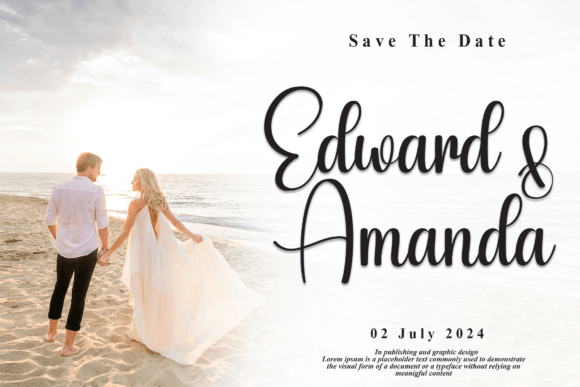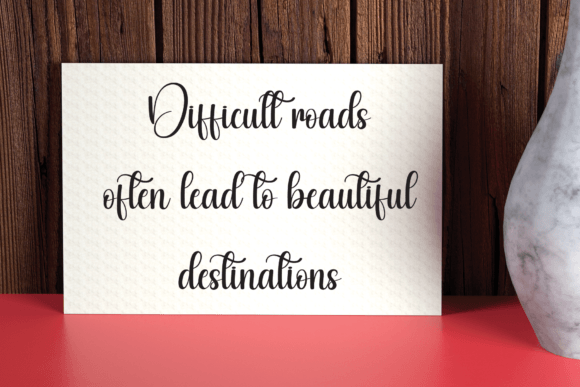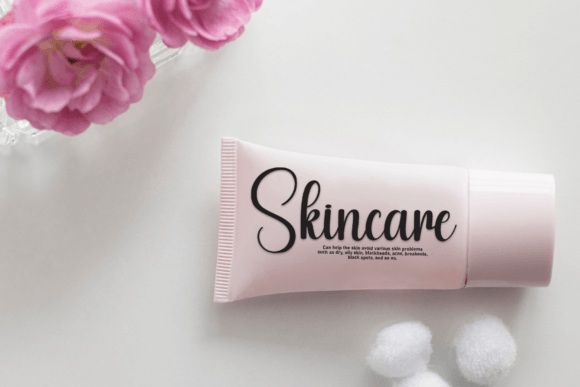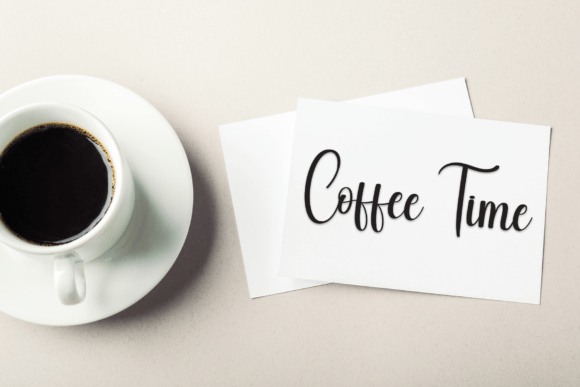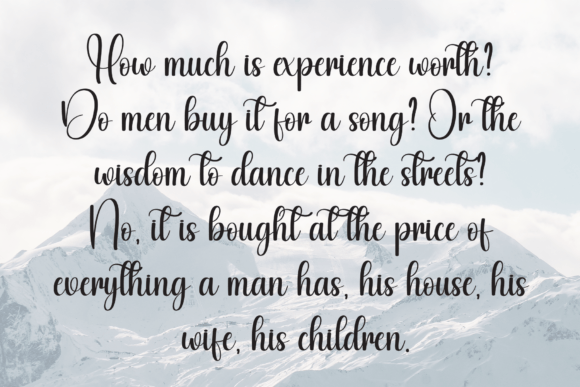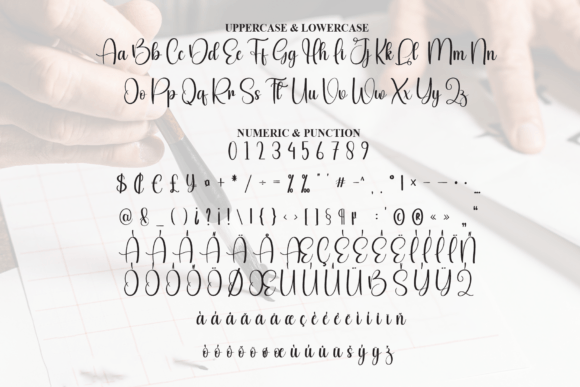
The Art of Elegant Typography: Unveiling the Calligraphy Font
As a designer, there’s nothing quite like the thrill of creating something beautiful from scratch. It’s the moment when inspiration strikes, and the words flow effortlessly onto the page. For me, it was the first time I used a Calligraphy Font in a project – the way the letters danced across the screen, exuding elegance and charm, was nothing short of magical.
Calligraphy Font is a stylish handwritten script font that adds a touch of sophistication to any design. Whether you’re creating invitations, branding, or social media graphics, this font is perfect for adding a personal touch. Its fluid strokes and natural flow create a captivating look that’s sure to leave a lasting impression. As a designer, you’ll find that the Calligraphy Font is an invaluable tool in your toolkit, allowing you to bring warmth and creativity to your work.
Key Features of Calligraphy Font
- Unique Characteristics: The Calligraphy Font features elegant, flowing lines and ornate details that evoke a sense of luxury and sophistication, making it ideal for formal invitations, wedding stationery, and other high-end designs.
- Script Variations: The font includes multiple script variations, including uppercase and lowercase letters, numerals, and punctuation marks, allowing for a wide range of creative possibilities.
Calligraphy Font Review
Overall, I think the Calligraphy Font is a beautiful addition to any design project. ✨ It’s perfect for creating elegant, high-end feels or adding a touch of sophistication to wedding invitations, menus, and other promotional materials. ✨ The flowing lines and intricate details give it a sense of luxury that’s hard to replicate with other fonts.
Here are some specific things that work well:
- The font is highly customizable, allowing you to adjust the stroke width, spacing, and other parameters to suit your design needs.
- The Calligraphy Font is available in a wide range of languages, making it a great option for international projects.
- The font is highly legible, even at smaller font sizes, which is a must for any professional design project.
However, there are some limitations to be aware of:
- ⚠️ The font can be quite heavy, which may not be suitable for all design projects or print materials.
- ⚠️ The font is not suitable for digital use, as it can be difficult to read on screens.
- ⚠️ The font requires a high level of technical skill to use effectively, which may be a barrier for some designers.
Overall, I would recommend the Calligraphy Font for designers who are looking to add a touch of elegance and sophistication to their projects. However, it’s not a one-size-fits-all solution, and designers should carefully consider the limitations before using it.
Alternatives to Calligraphy Font
Playfair Display is an elegant, high-end serif font that resembles calligraphy. It is ideal for use in titles, headings, and other high-impact text where a touch of sophistication is required. Compared to Calligraphy Font, Playfair Display has a more refined and formal appearance, making it suitable for luxury brands and high-end design projects.